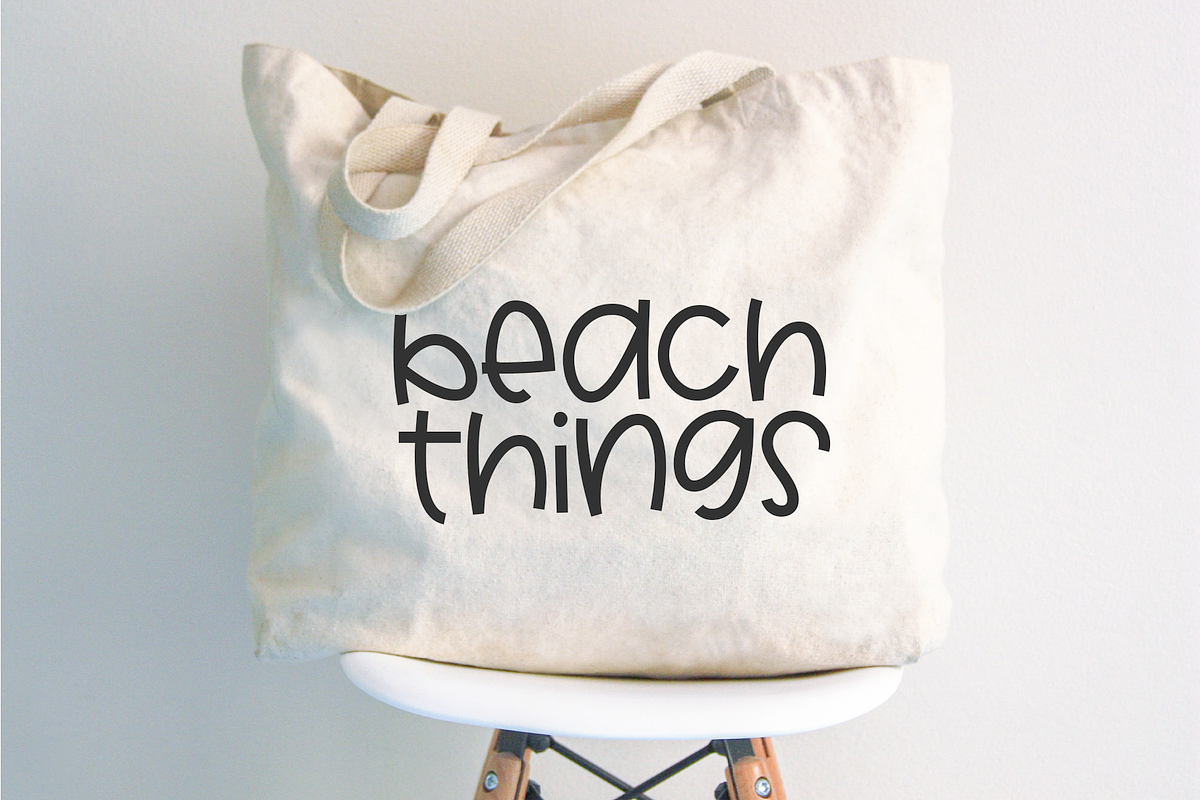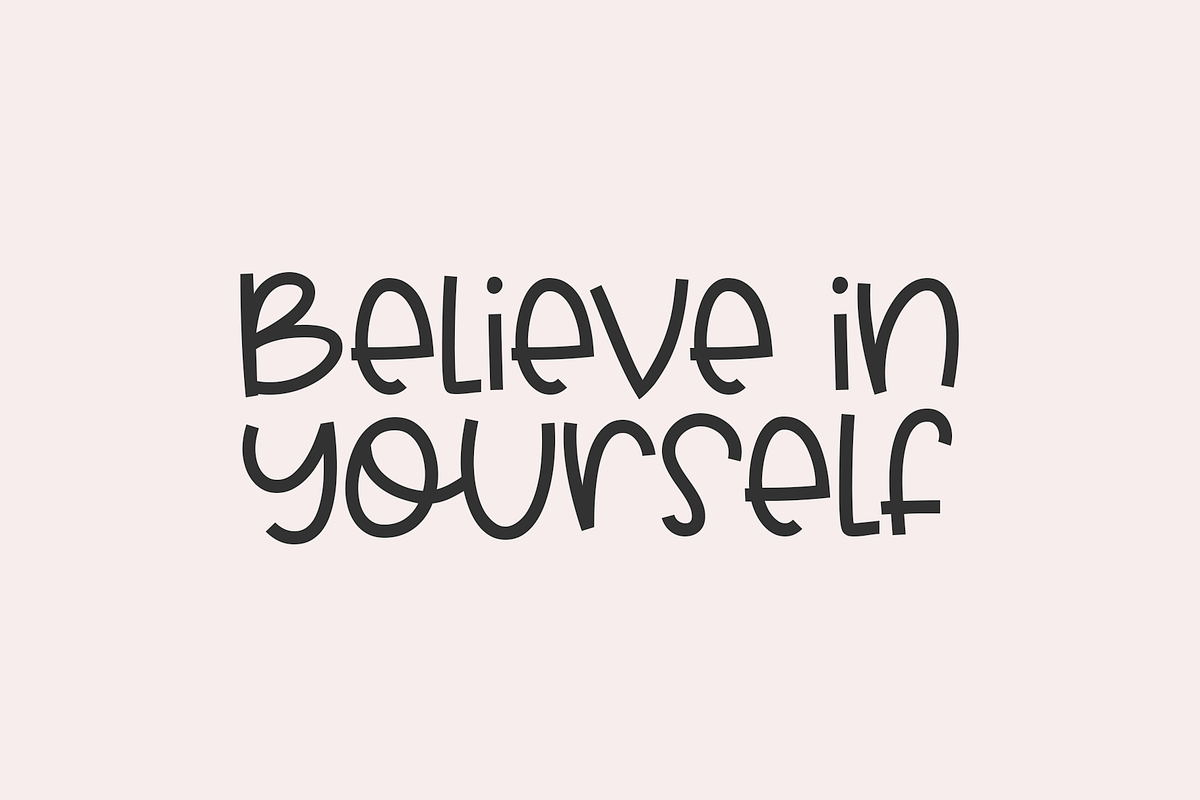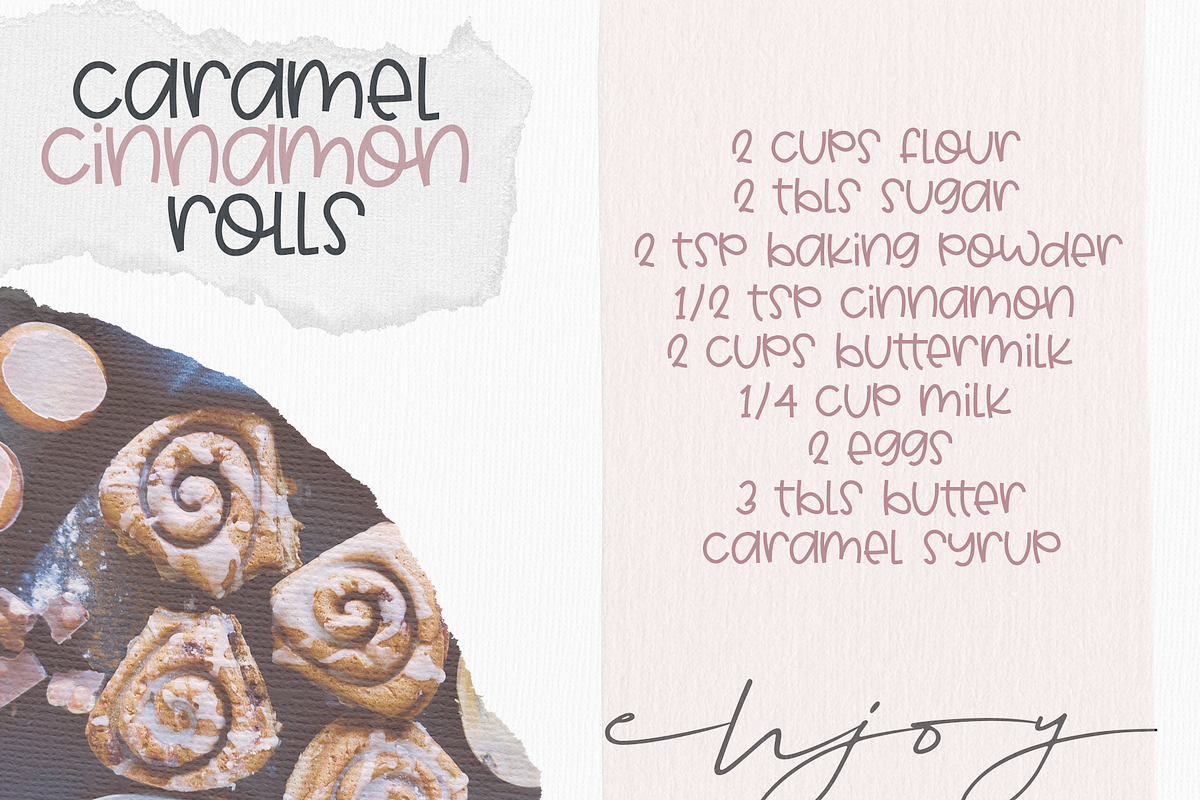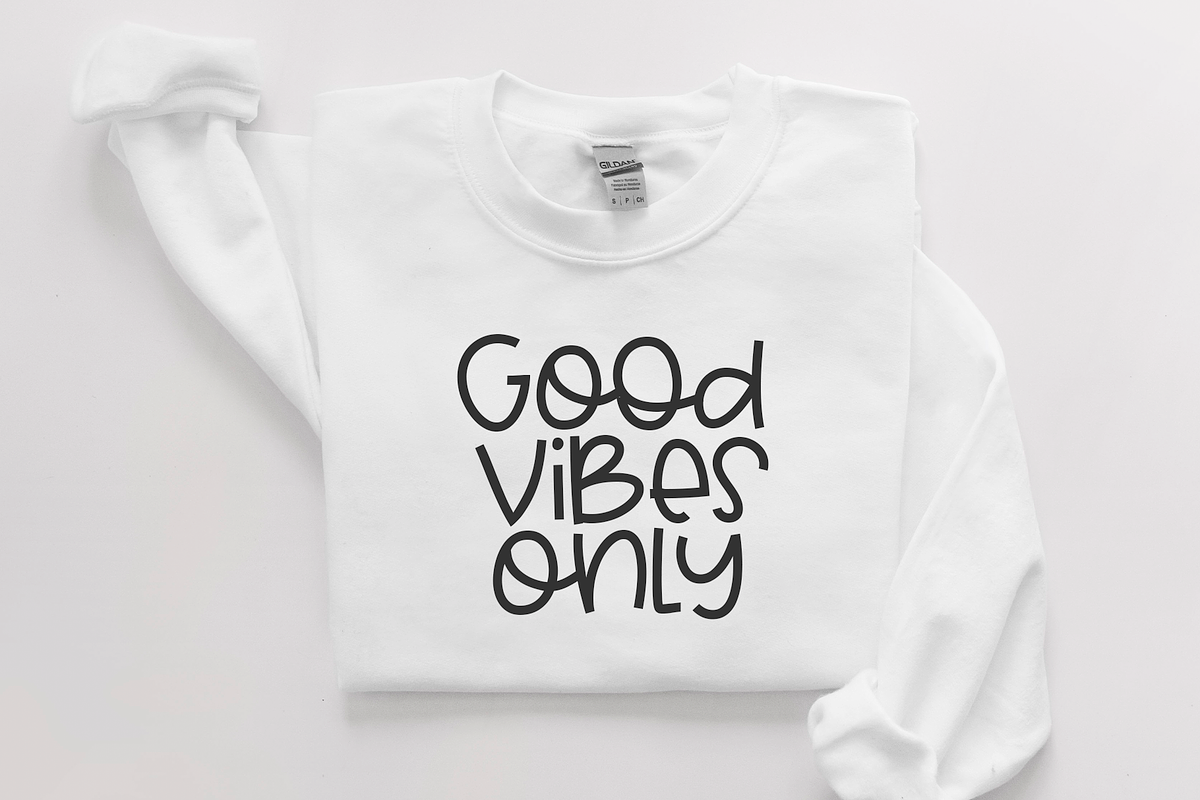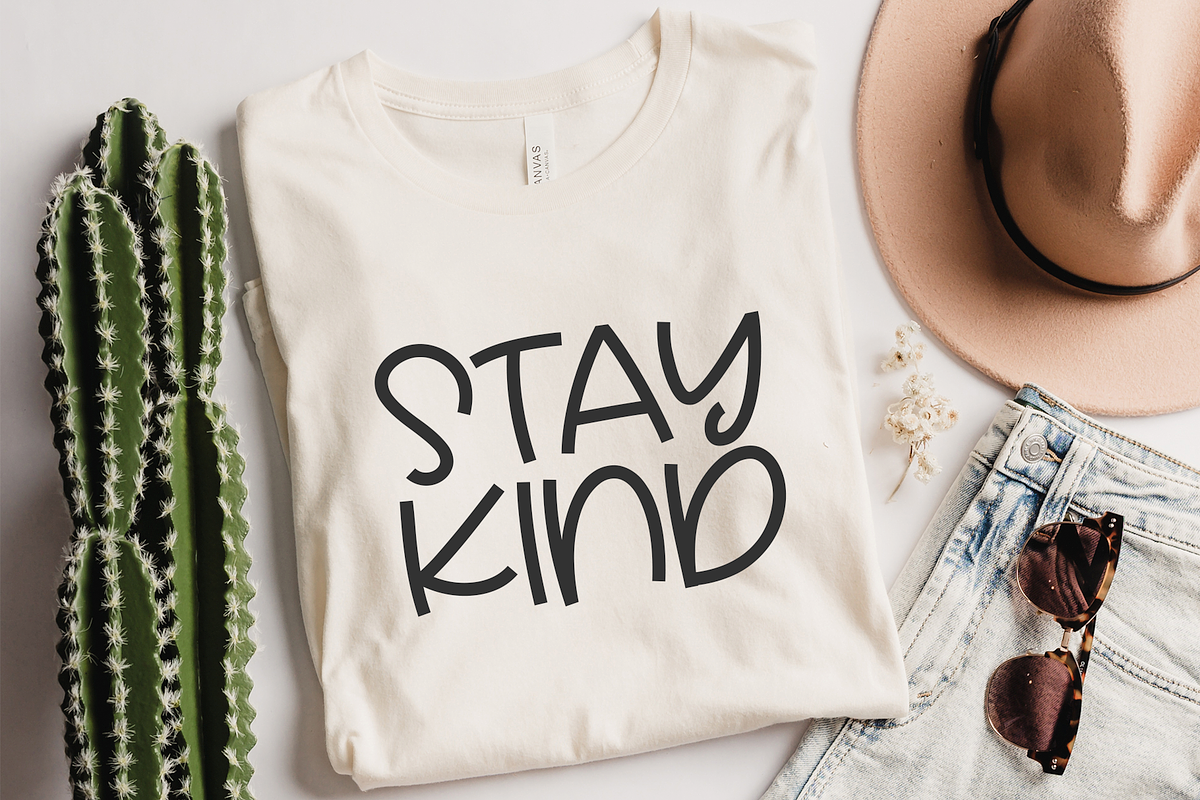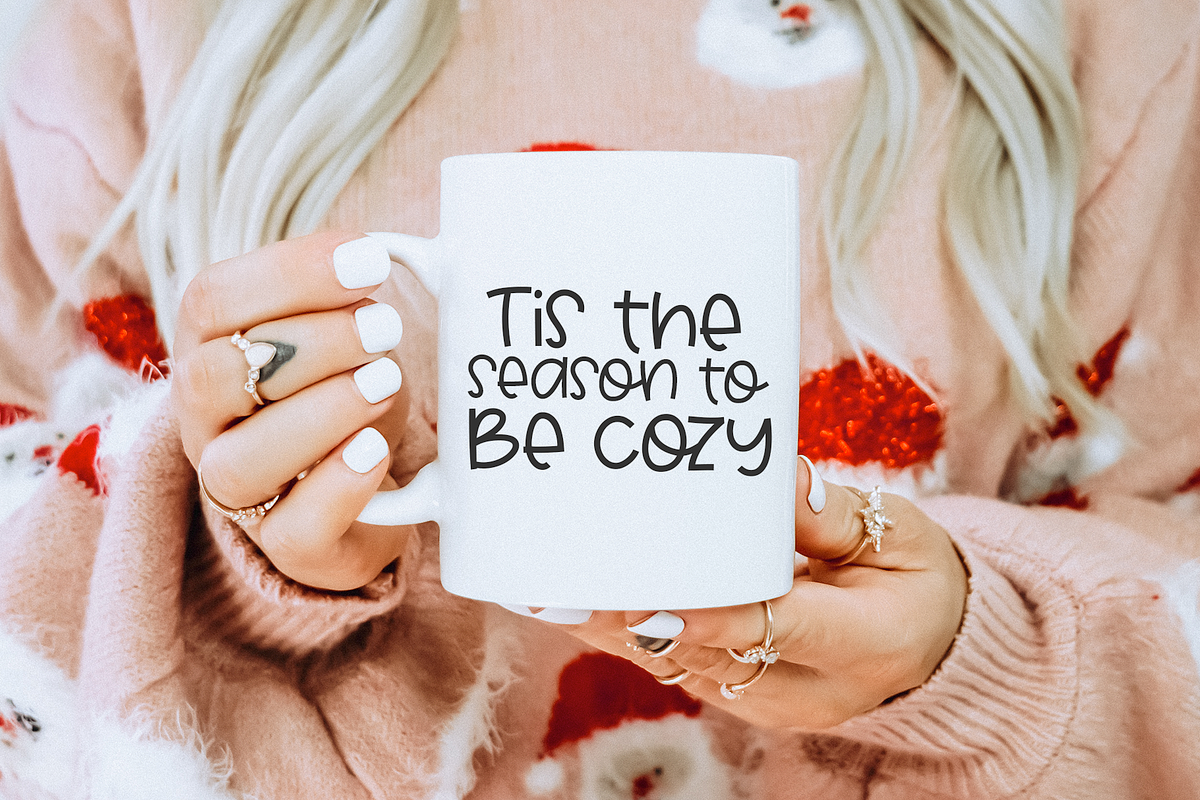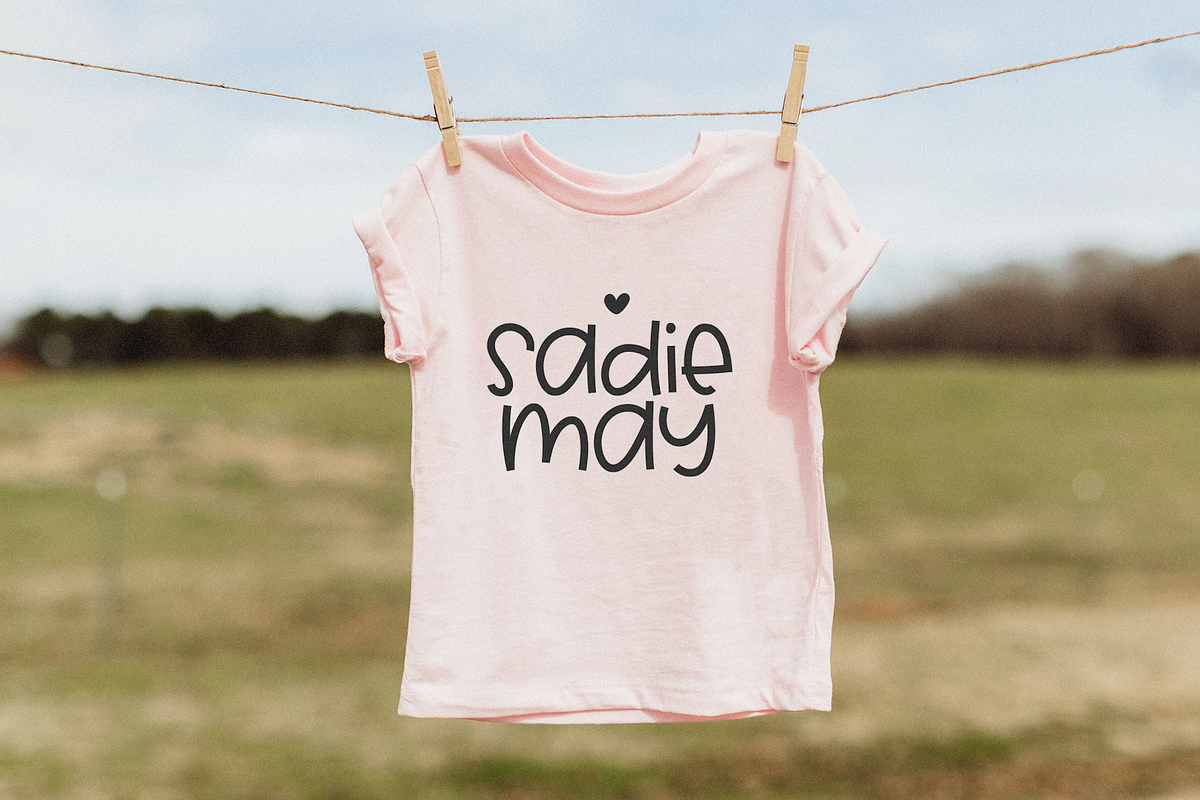
Cinnamon | A Quirky Handwritten Font
Cinnamon is a quirky & cute handwritten font.
This font is perfect for quotes, headings, blogs, logos, invitations and more!
Cinnamon | A Quirky Handwritten Font by KA Designs fits naturally into Branding, posters, packaging, typography.